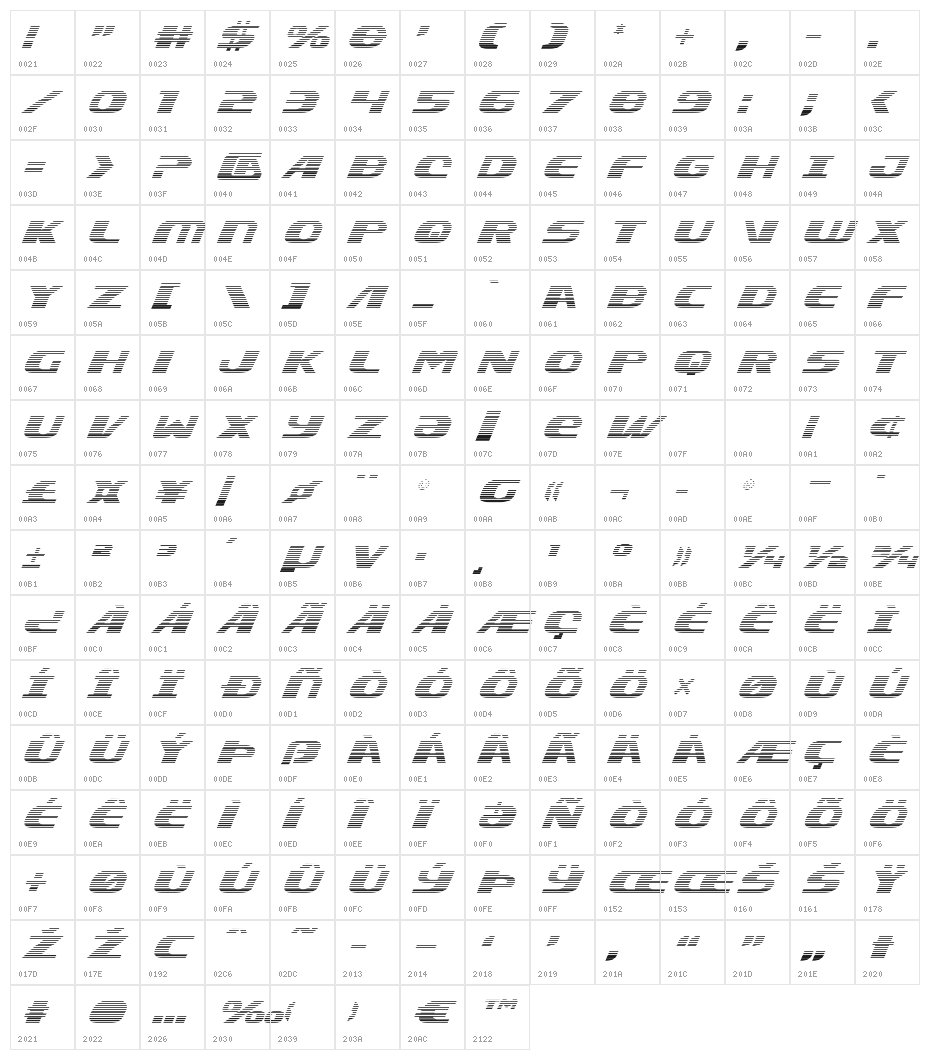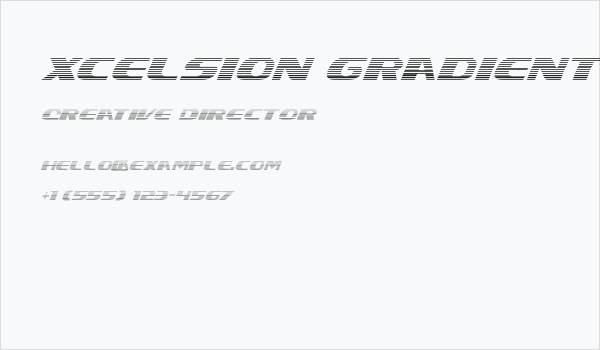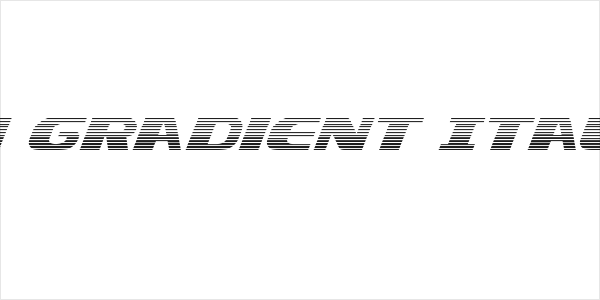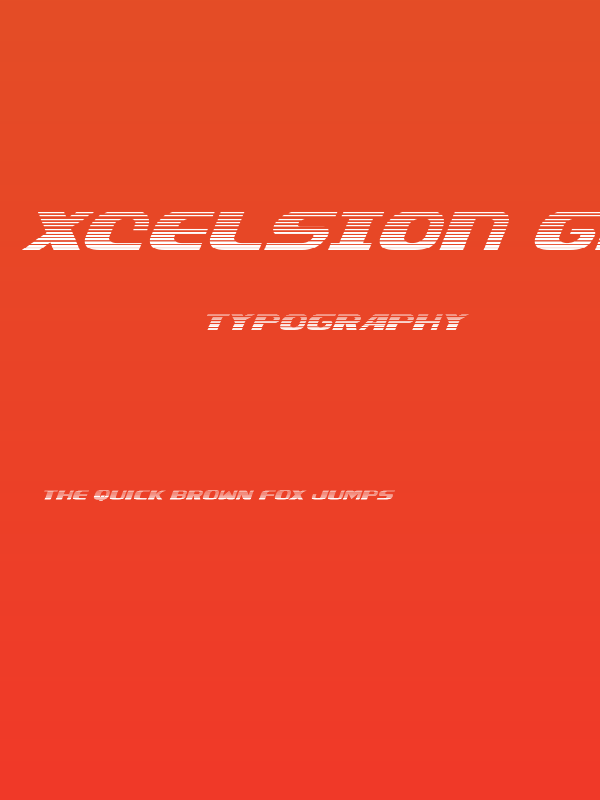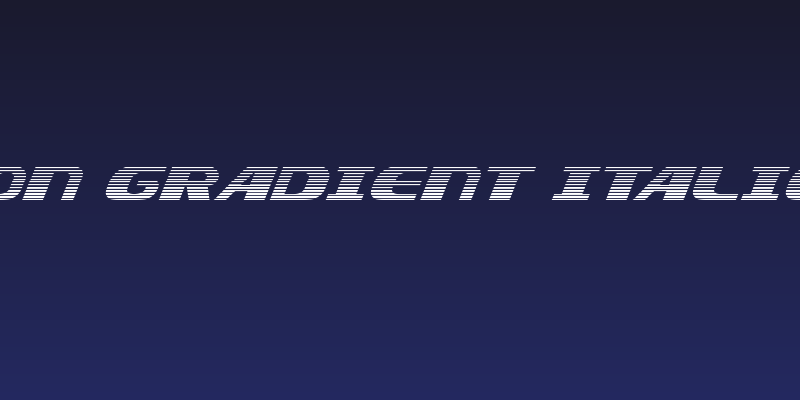
Xcelsion Gradient Italic Italic Font
Xcelsion Gradient Italic Italic Description
This font features a dynamic, futuristic design with a distinct italic slant. Each character is composed of horizontal lines that create a gradient effect, giving the font a sense of motion and speed. The uppercase and lowercase letters maintain a consistent style, with sharp angles and clean lines. The numbers and special characters are equally stylized, ensuring uniformity across all glyphs. This font's unique appearance makes it stand out, ideal for projects that require a modern and edgy look.